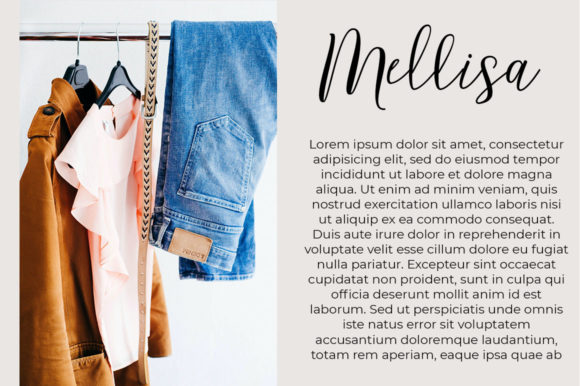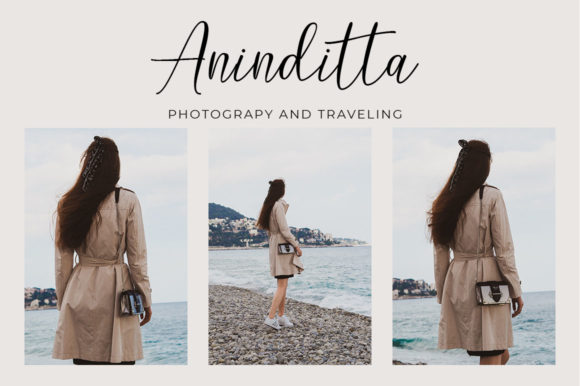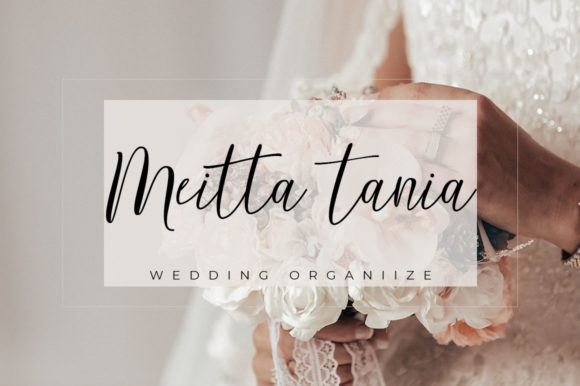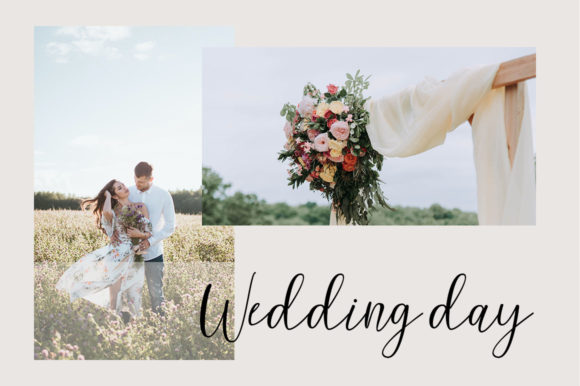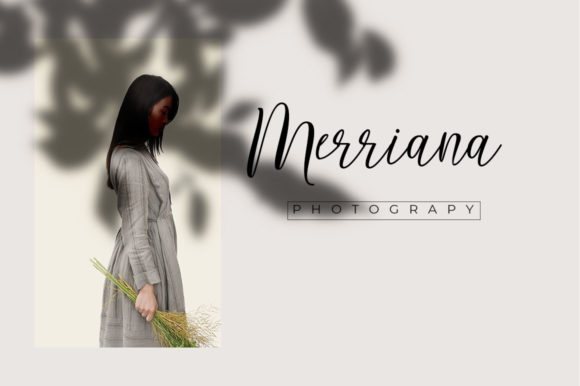
Introduction to Mellisa Font
Mellisa is a lovely, flowing, script font.
It looks beautiful on a variety of designs requiring a personalized style, such as wedding invitations, thank you cards, weddings, greeting cards, logos and so on This font is PUA encoded which means you can access all of the glyphs and swashes with ease.
Mellisa Font offers exceptional quality and versatility, making it a valuable addition to your design toolkit. Whether you’re creating for personal projects or commercial use, Mellisa Font delivers professional results.